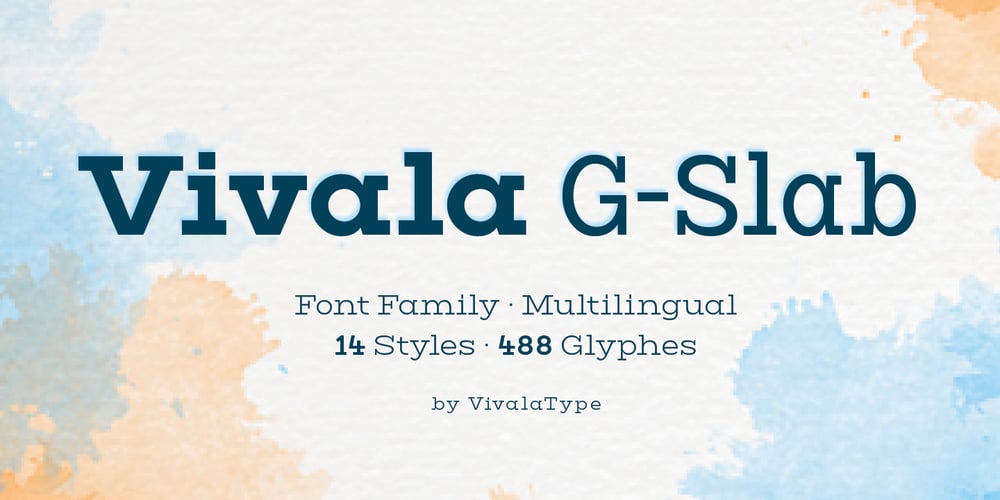
Vivala G Slab Font Family was designed by Johannes Hoffmann and published by Johannes Hoffmann. Vivala G Slab contains 14 styles and family package options. The geometric G-Slab family is characterized by distinct large serifs and variance of line width from hairline to bold. It is suitable for titles in different sizes as well as for text blocks. The family includes seven weights and two widths. The extended character set supports Northern, Western, Southern and Central European as well as Eastern European languages.